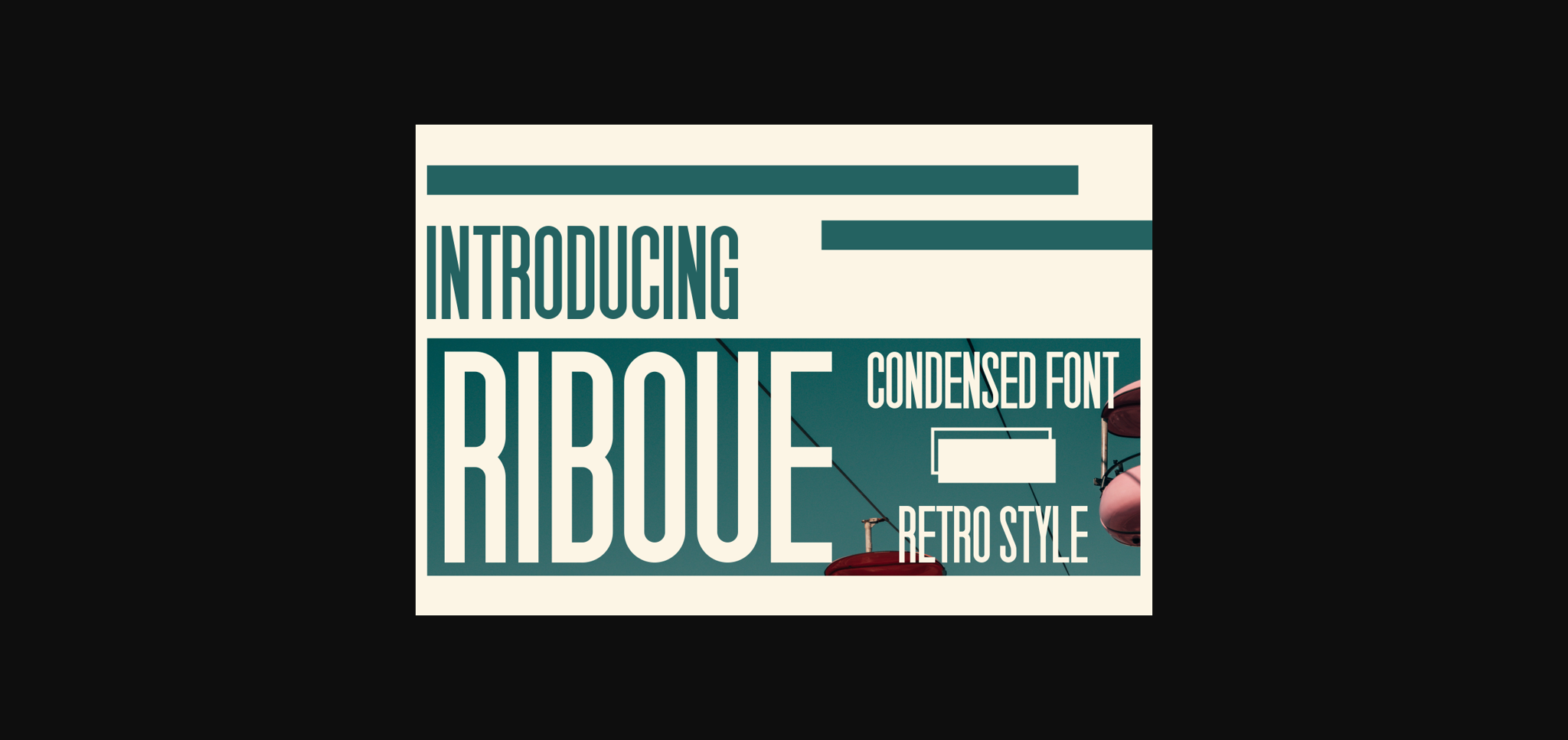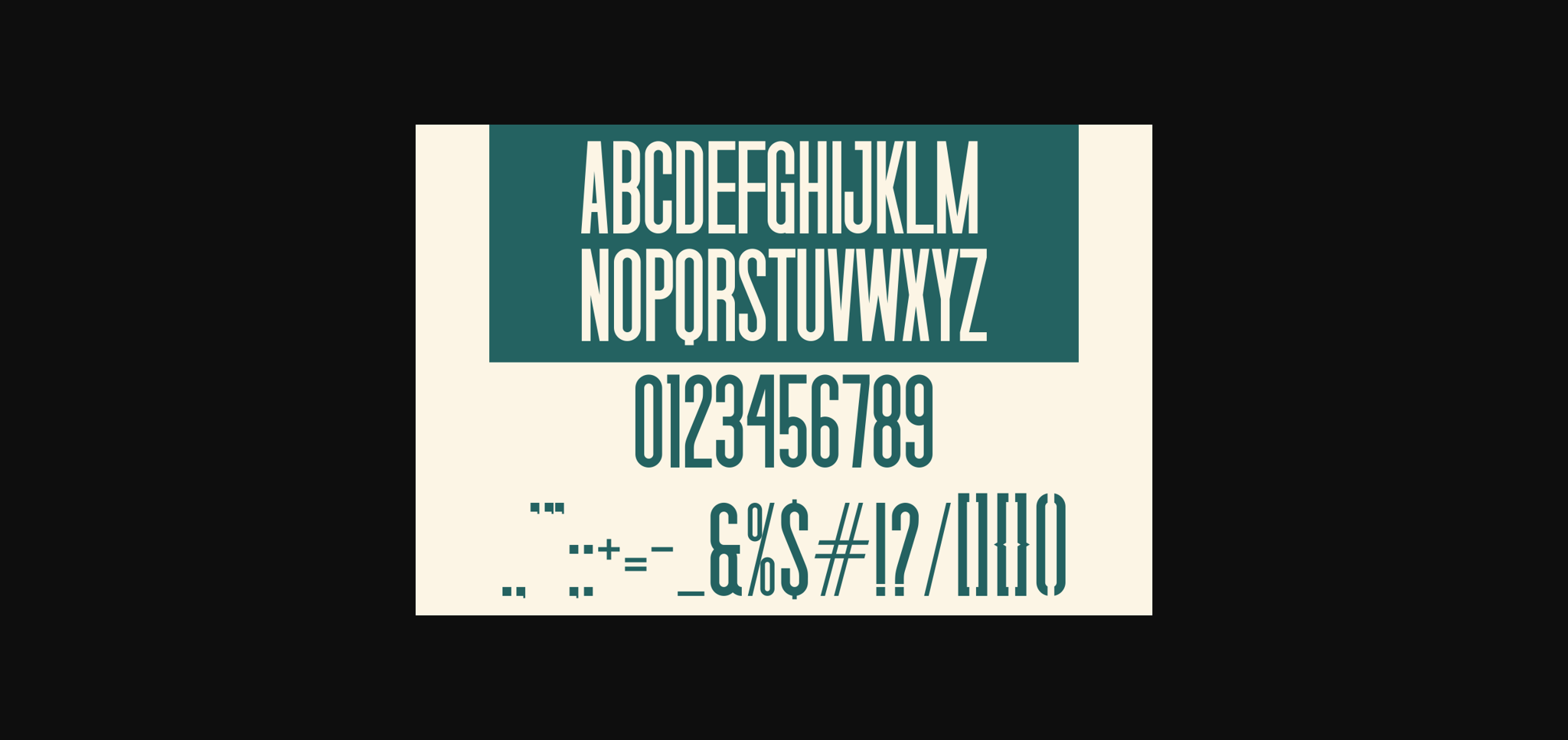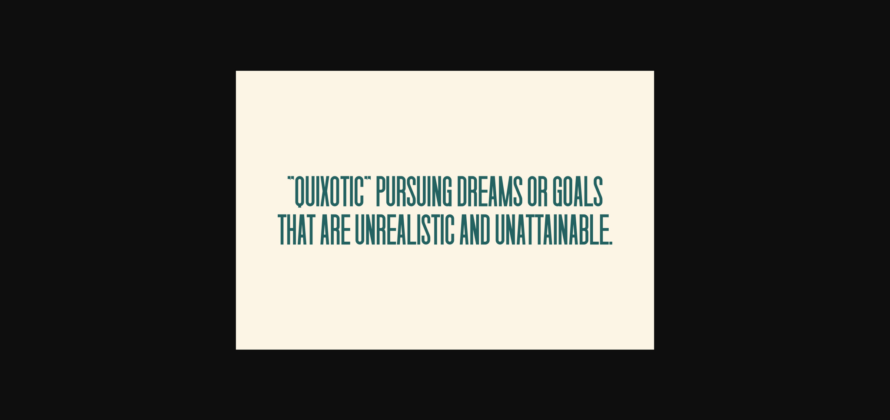
About Riboue Font
Riboue is a sleek sans-serif font that epitomizes modern minimalism with a touch of refinement. Its clean lines and well-balanced letterforms create a sophisticated and versatile aesthetic. Ideal for projects demanding clarity and contemporary elegance, Riboue adds a sleek, polished look to your designs.